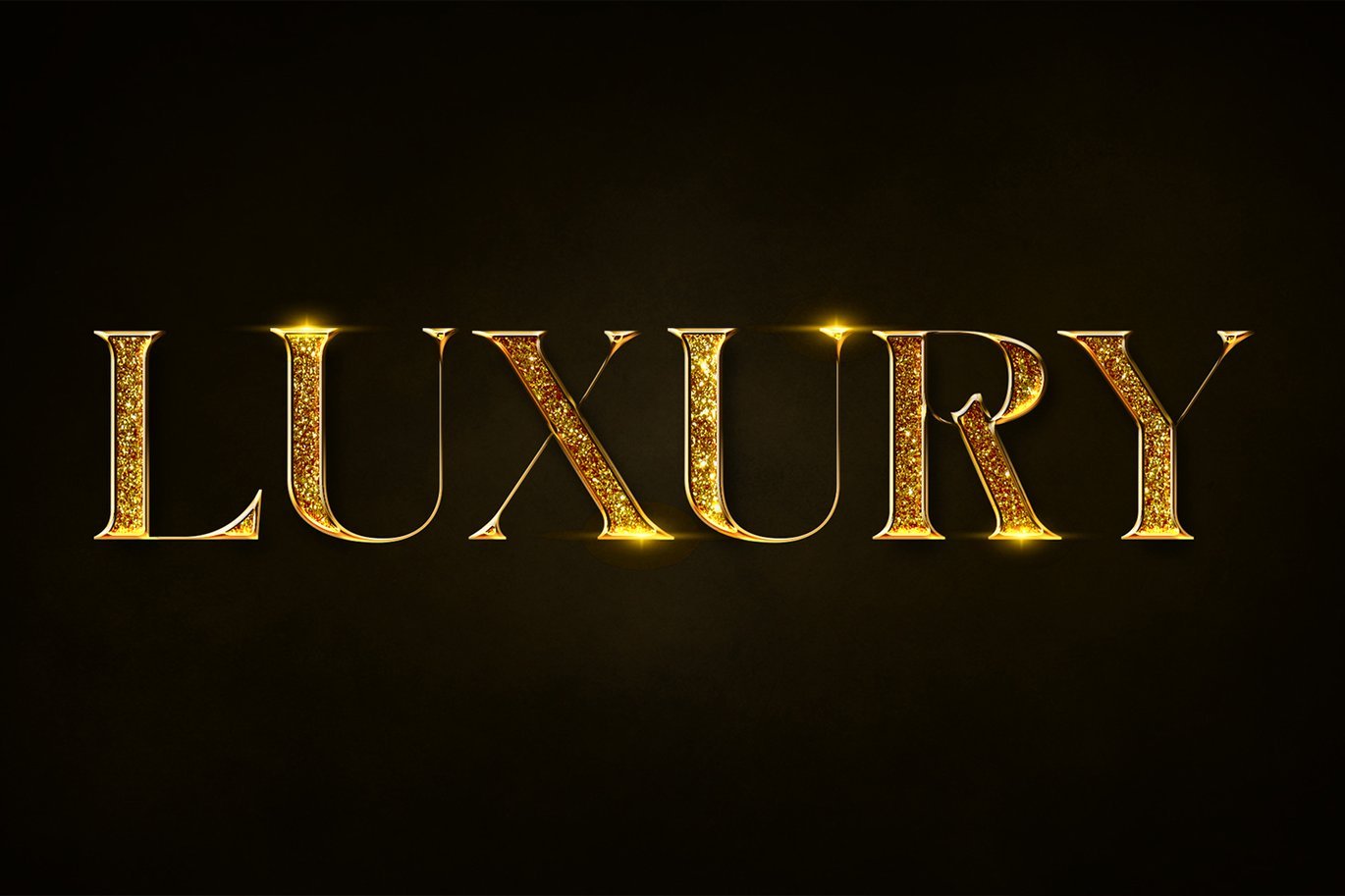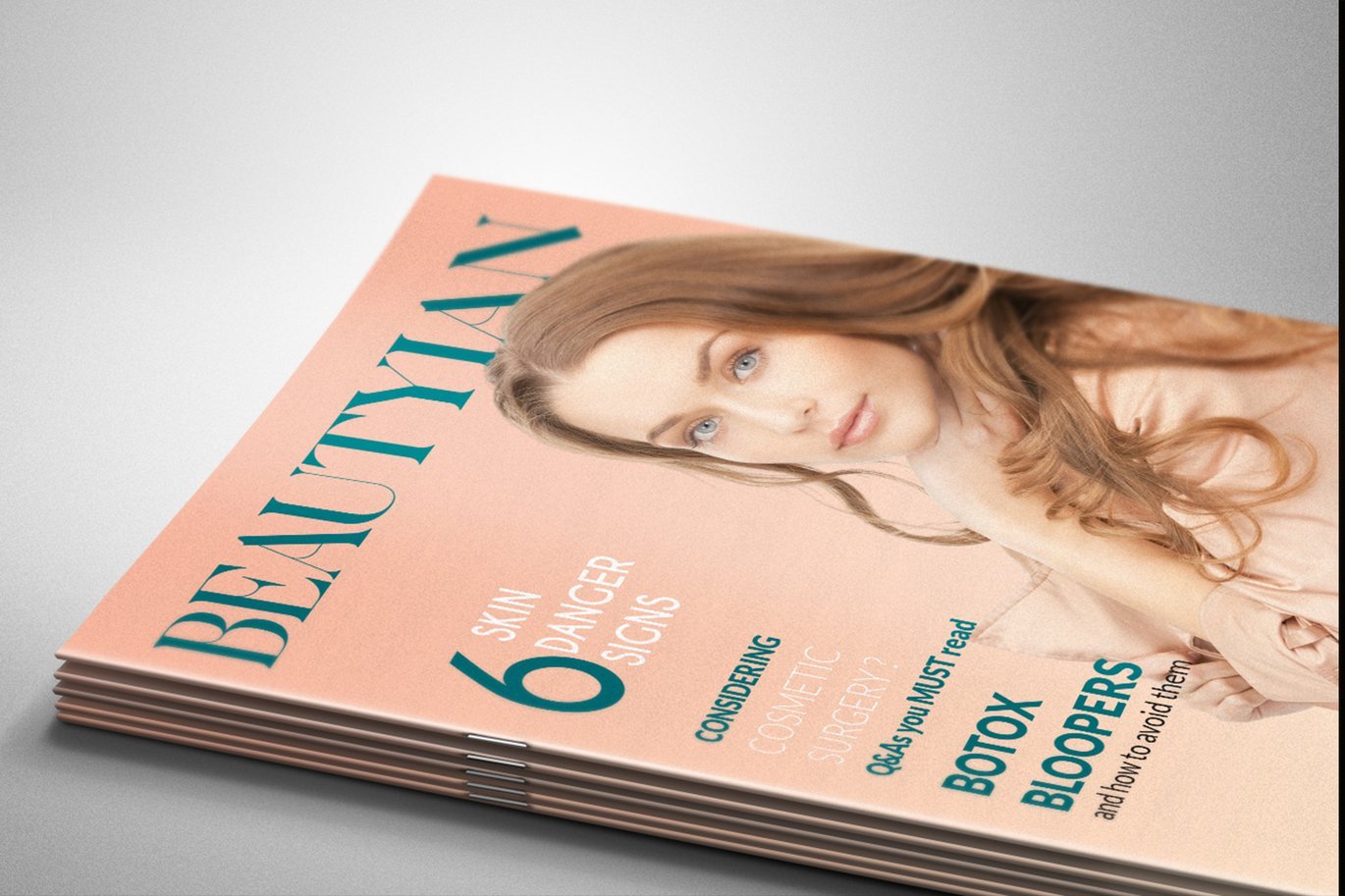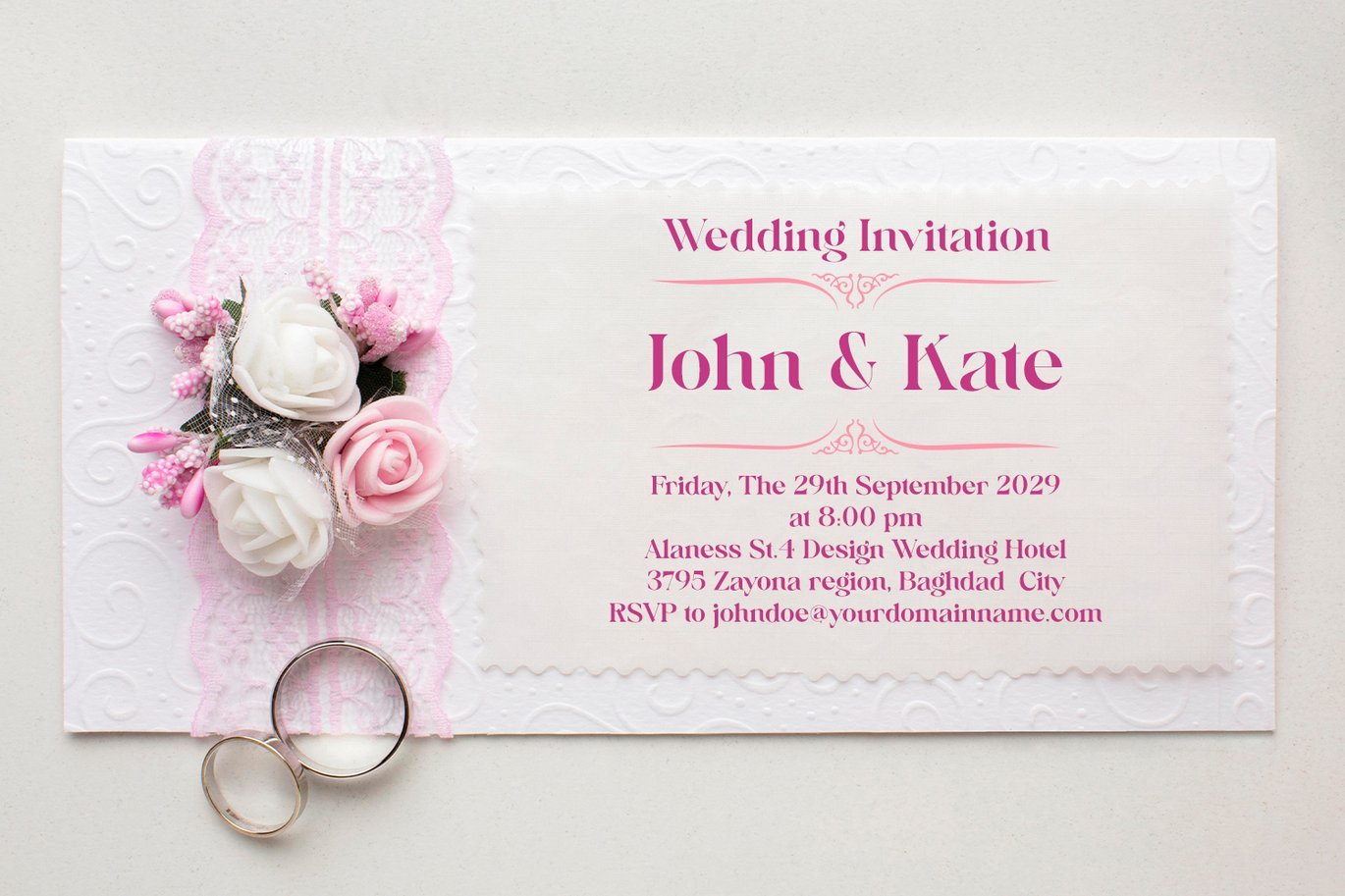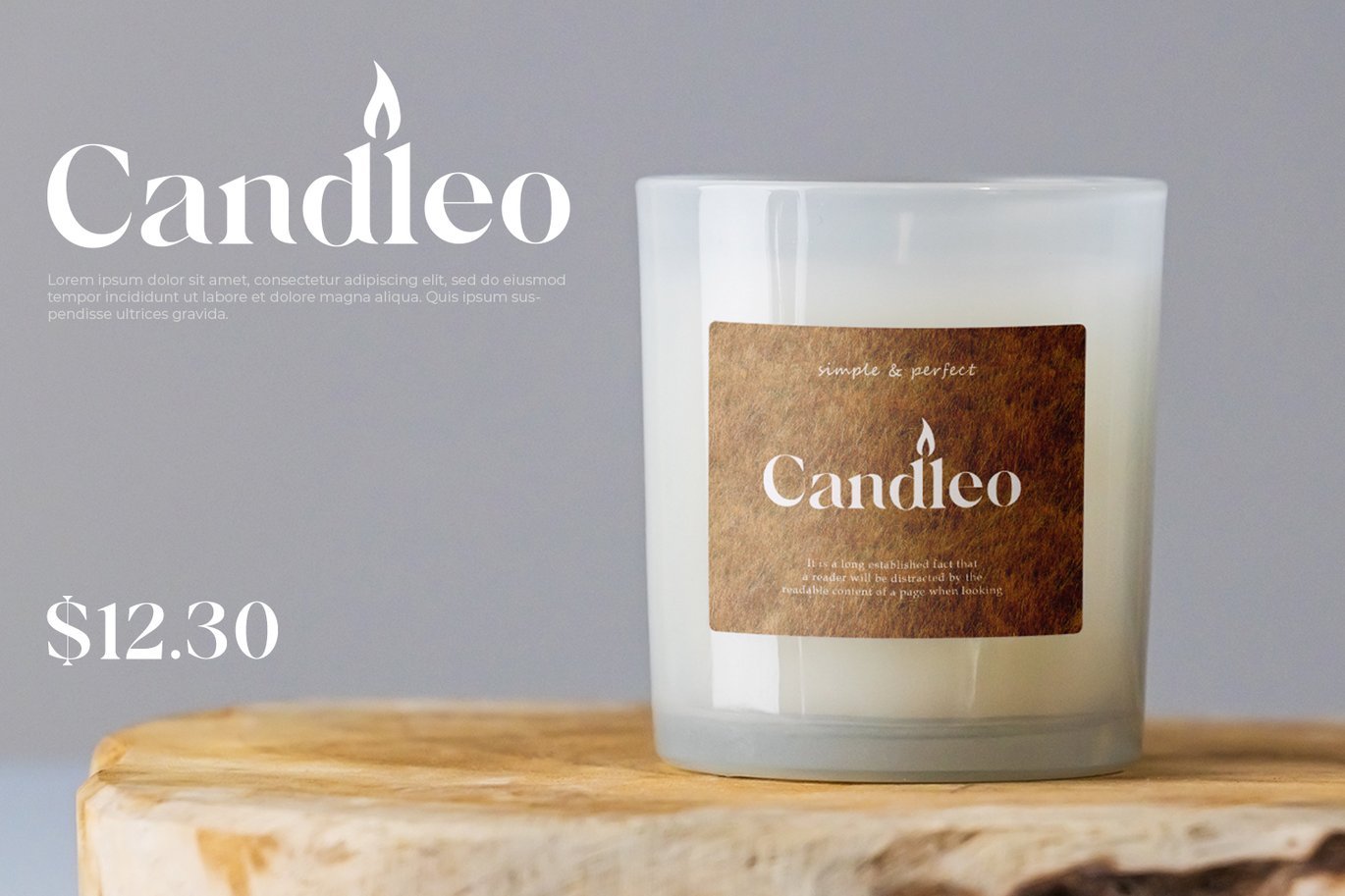
Mirage – High Contrast Serif Font
Mirage - Display Serif Font
Mirage is a premium and elegant serif typeface that beautifully balances classic typographic traditions with a modern, luxurious aesthetic. Characterized by its striking high contrast between thick and graceful thin strokes, this font delivers a highly sophisticated and refined look to any design project. Every letterform is meticulously crafted with sharp, clean serifs and smooth curves to ensure your typography stands out with absolute clarity and prestige.
This luxury font is not just a standard serif; it includes unique, beautifully designed ligatures (such as the distinctive 'st' connection) that add a bespoke, custom-lettered feel to your text. Whether used in large, commanding headlines or elegant short paragraphs, Mirage maintains its flawless readability and timeless charm.
- Unique letterforms